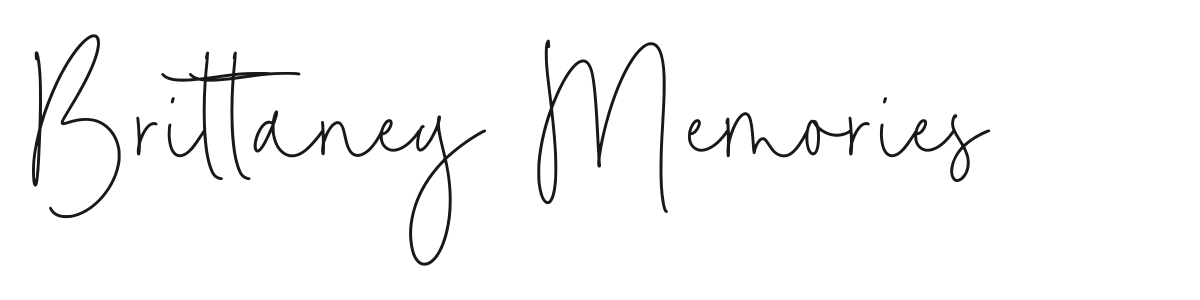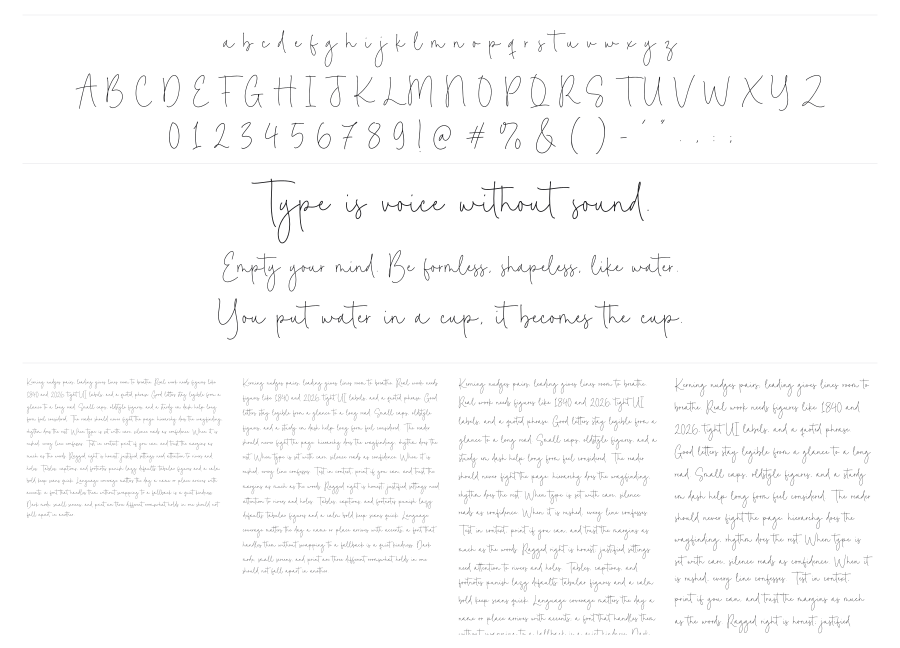
Brittaney Memories
Brittaney Memories is a thin, flowing casual script with the loose, natural feel of a handwritten signature. Long looping descenders and seamless letter connections give it an effortless, airy quality. It reads beautifully at large sizes for wedding stationery, branding, and lifestyle packaging.